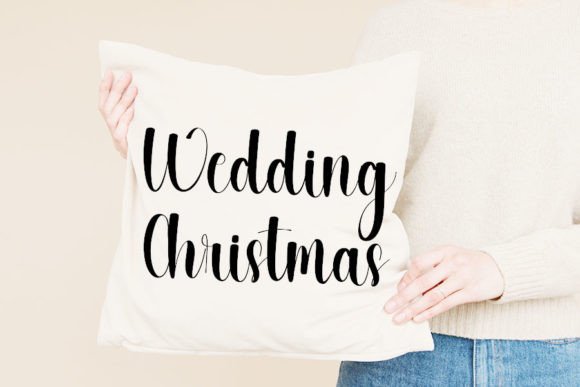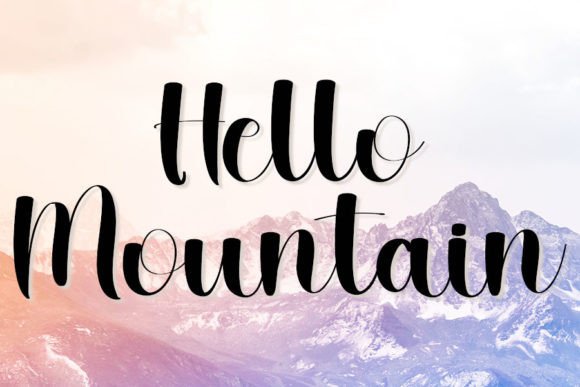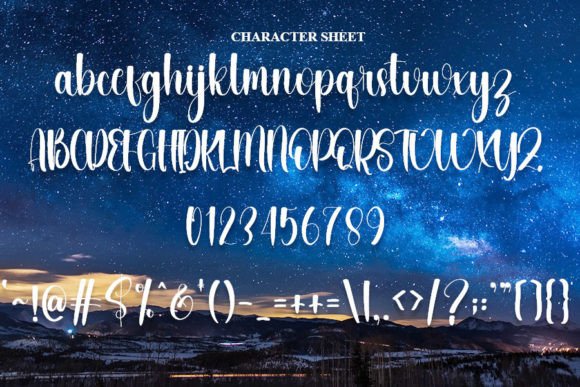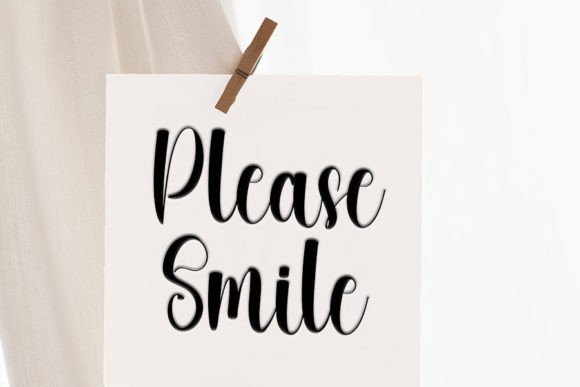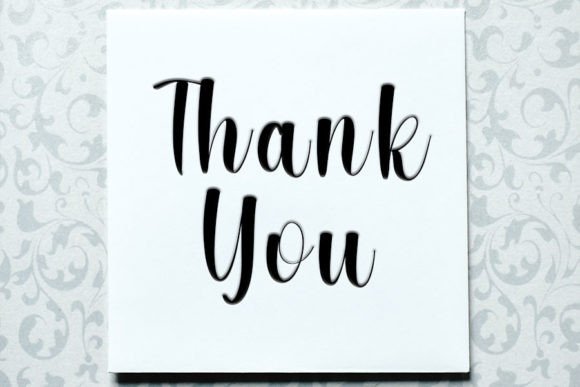
Adding a Touch of Elegance to Your Designs
Have you ever stared at a blank canvas, waiting for inspiration to strike? For designers, those moments are a norm, but it’s in these instances that creativity truly blooms. A spark of an idea can transform a dull project into a masterpiece, and sometimes, all it takes is the right font to set the tone.
Enter Inline Font, a stylish handwritten font that exudes a contemporary atmosphere and impeccable form. Its timeless classic calligraphy inspiration makes it a valuable addition to any design project, adding a touch of elegance and sophistication. Whether you’re working on a logo, branding, or advertising campaign, Inline Font is sure to elevate your design and leave a lasting impression.
Key Features of Inline Font
- Unique Characteristics: Inline Font features a unique blend of modern and traditional design elements, making it an ideal choice for users who want a font that stands out from the crowd.
Inline Font Review